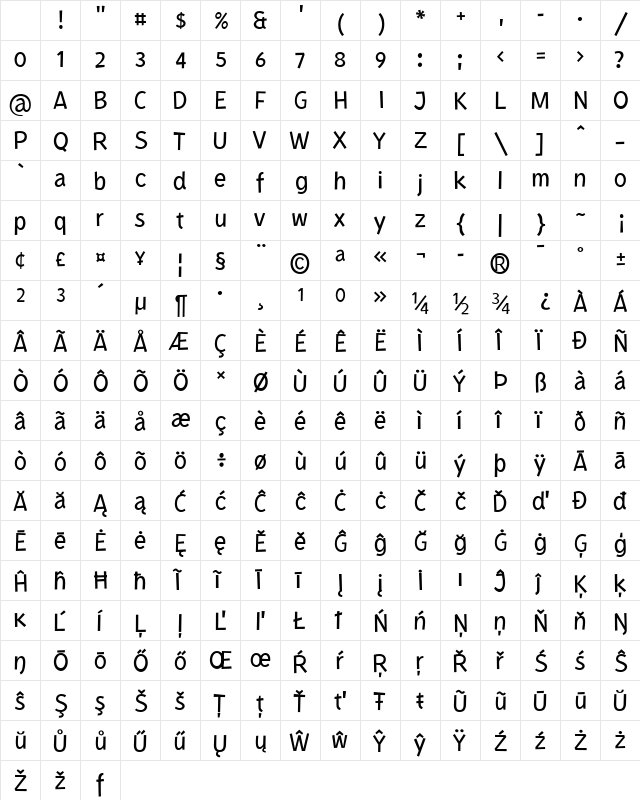
Kurri Island Thin is a composed and adaptable typeface that performs quietly and consistently across a wide range of design contexts. Its slender proportions lend an understated elegance to any composition.